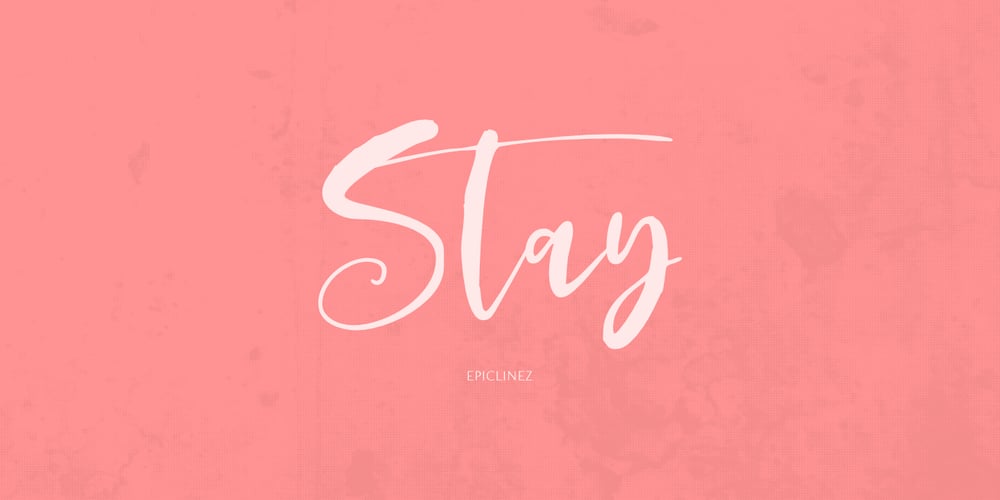
Stay Font Family was designed by Aldy Sidik and published by Epiclinez. Stay contains 1 styles and family package options. Stay is a stylish and modern calligraphy font. This handwritten beauty is suitable for high-end, sophisticated branding, or for simple, memorable Instagram quotes.The font Stay contains 205 glyphs. Supporting more than 66 languages, from English to Zulu. It is also PUA encoded and has open-type features such as 9 ligatures to help you create that authentic hand-lettered look.So what’s included: Stay Font Basic Latin A-Z, a-z, numbers, symbols, and punctuations. Accented Characters : ÀÁÂÃÄÅÆÇÈÉÊËÌÍÎÏÑÒÓÔÕÖØŒŠÙÚÛÜŸÝŽàáâãäåæçèéêëìíîïñòóôõöøœšùúûüýÿžß Thanks, hope you enjoy our fonts